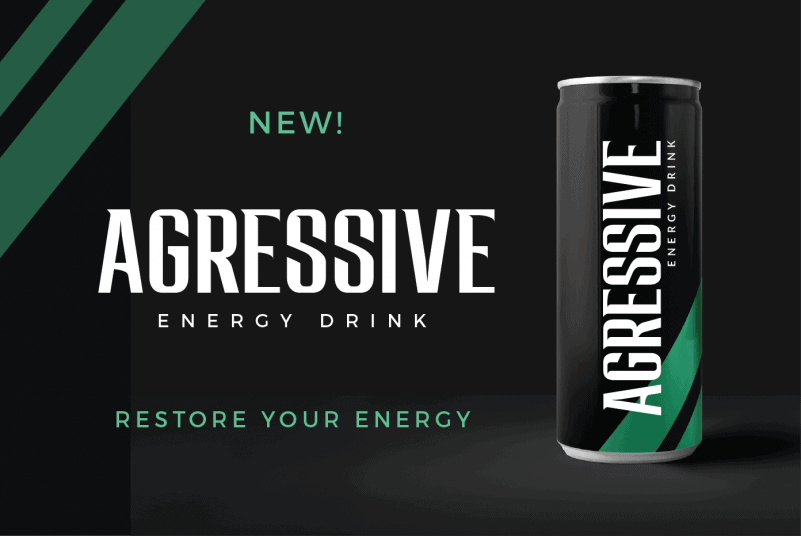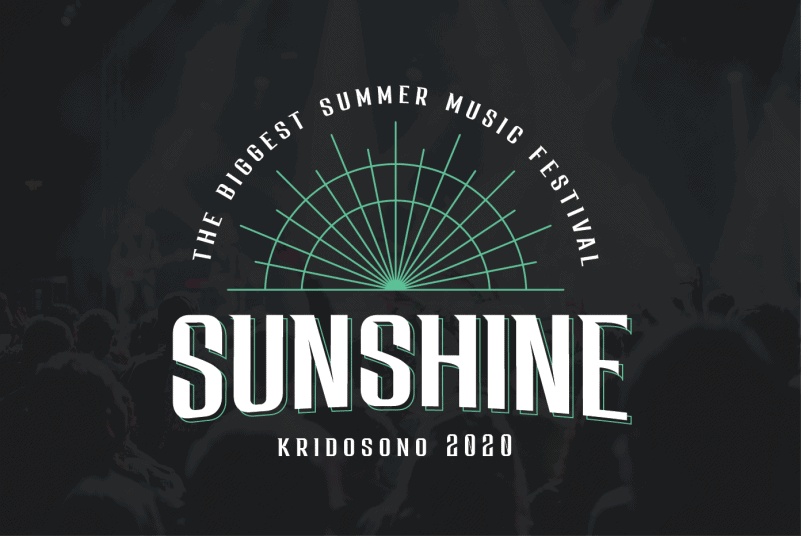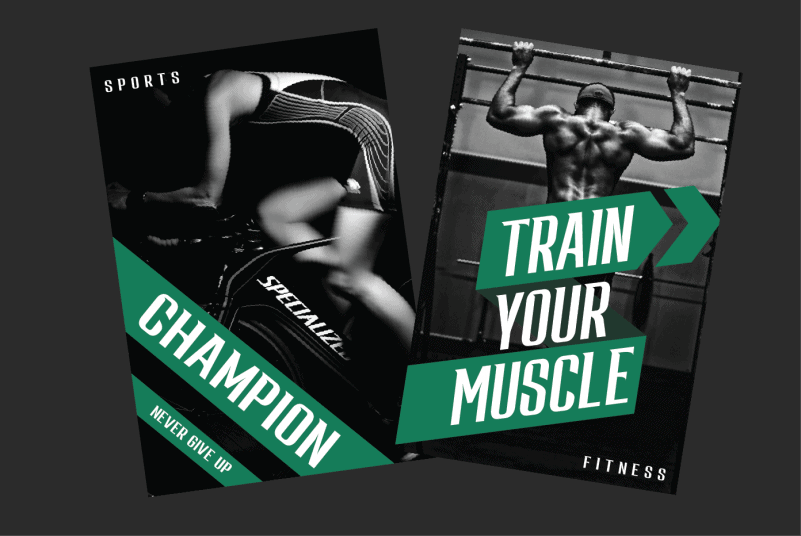
Morington Font
Morington Font is condensed display typeface with strong characters to support your brand/project. This font can be used in modern theme and also in classic theme. Morington Font is perfect for projects such as logos & branding, headlines, posters, signage, advertisements, printed quotes, product packaging, product designs, label, photography, watermark, special events or anything.